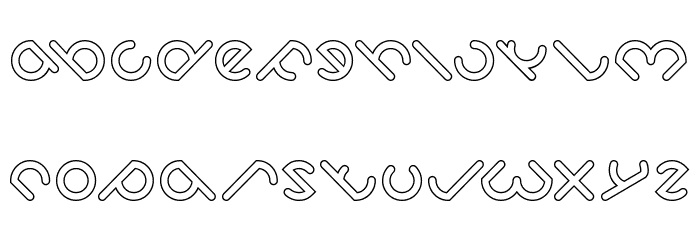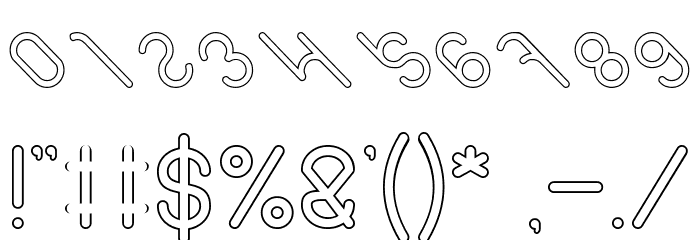
owaikeo-Hollow Font
This font features a unique, hollow design with a continuous line style that creates a modern and futuristic appearance. Each character is crafted with a single, unbroken line that loops and curves to form the letters, giving it a distinctive and artistic flair. The uppercase and lowercase letters maintain a consistent style, with rounded edges and a playful, yet sophisticated look. The numbers and special characters follow the same design principles, ensuring a cohesive appearance across all elements. This font's open and airy structure makes it ideal for creative projects that require a touch of elegance and modernity.
A modern, hollow font with a continuous line design, perfect for creative projects.
- Proposed Projects: Ideal for branding, logos, posters, and digital art projects that require a modern and artistic touch.
- Weight: Light
- Use Case: Logos, Posters, Digital Art